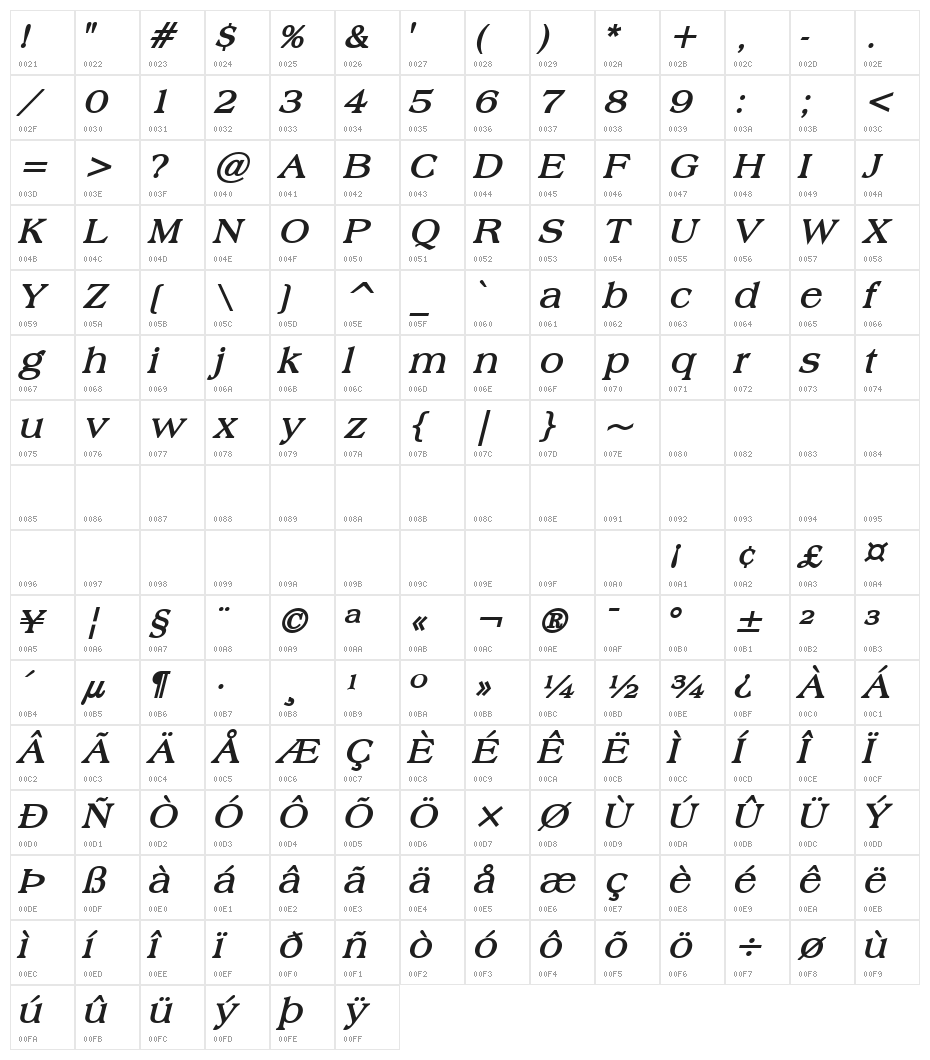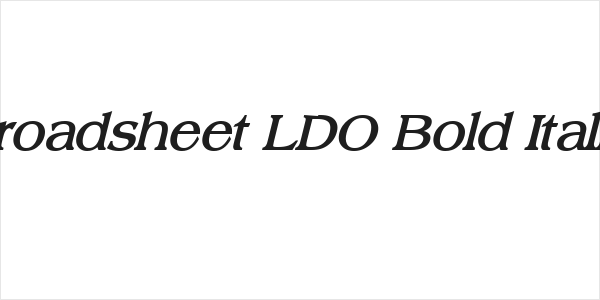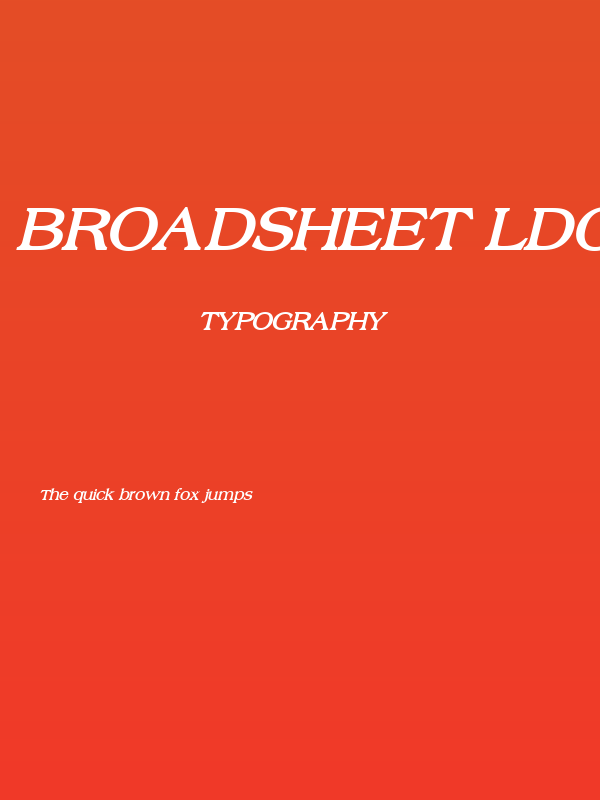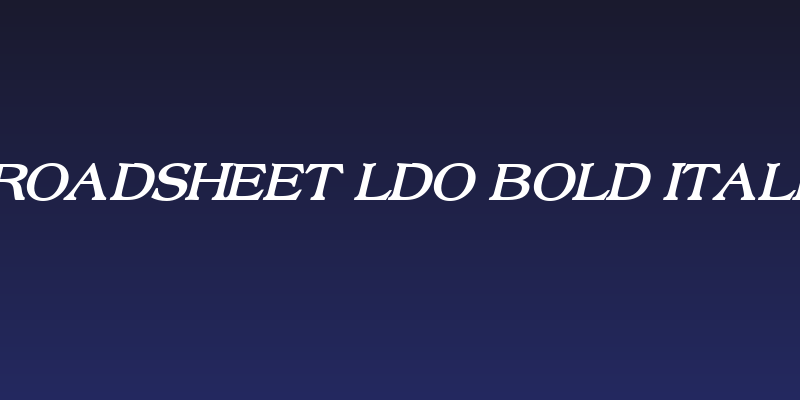
Broadsheet LDO Bold Italic Font
Broadsheet LDO Bold Italic Description
This font exhibits a bold and italicized style, characterized by its elegant and flowing serifs. The letters are slightly slanted, adding a dynamic and sophisticated touch. The strokes are thick, providing a strong presence, while the serifs are pronounced, enhancing the classic appeal. The numerals and special characters maintain the same bold and italicized characteristics, ensuring consistency across all glyphs. This font is well-suited for projects that require a touch of elegance and formality.
Overall StyleClassic
Use CaseHeadlines, Logos, Editorials
Proposed ProjectsIdeal for use in formal invitations, luxury branding, editorial headlines, and elegant packaging designs.